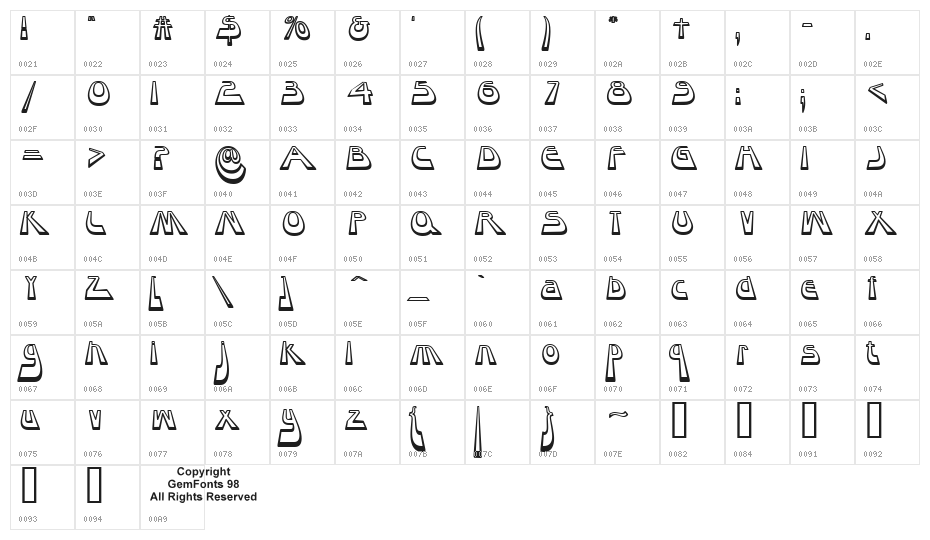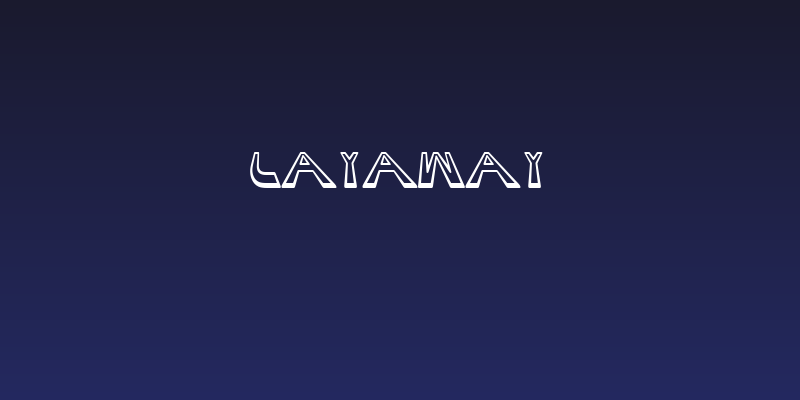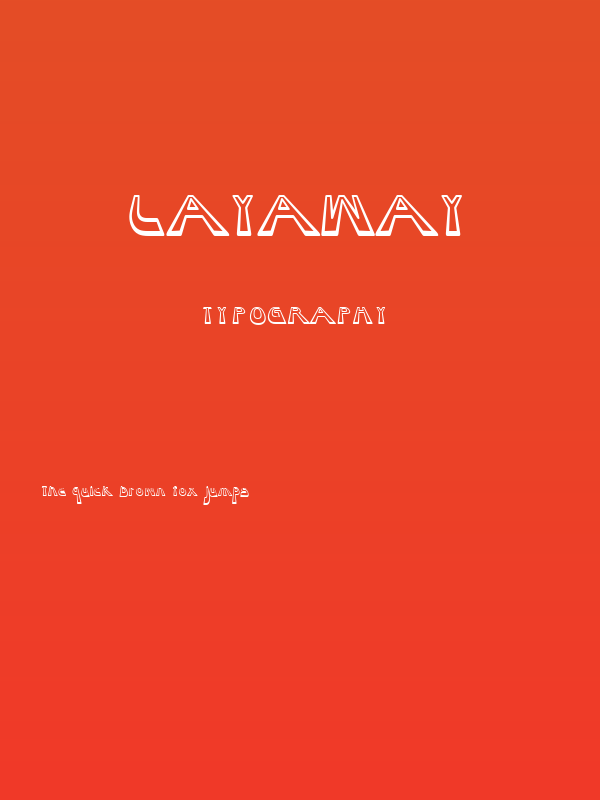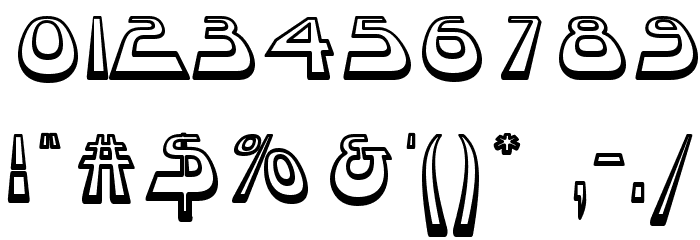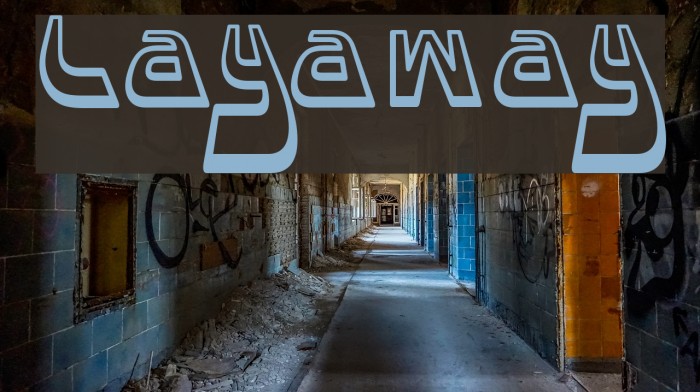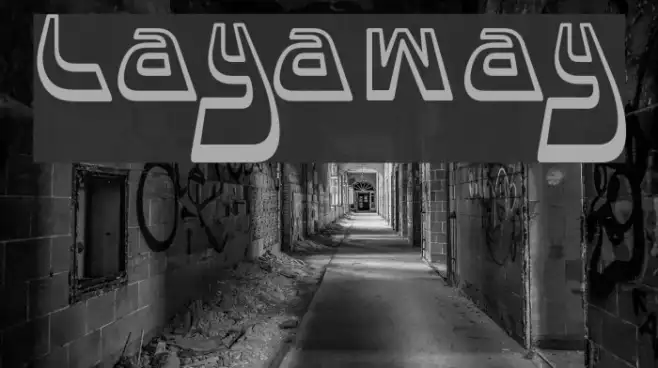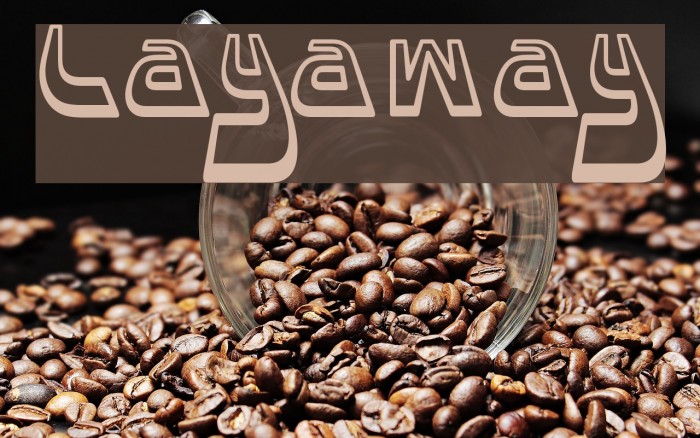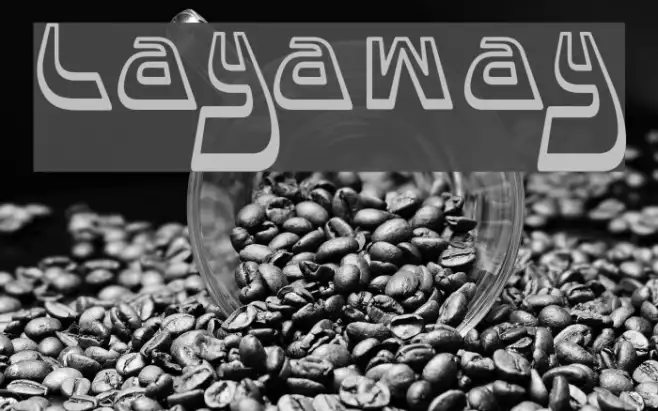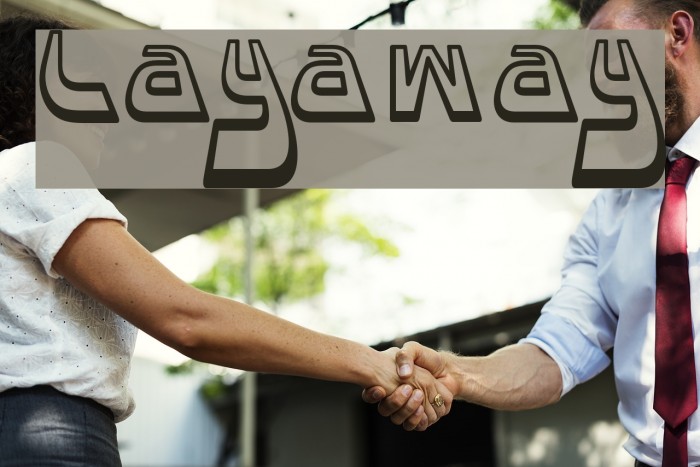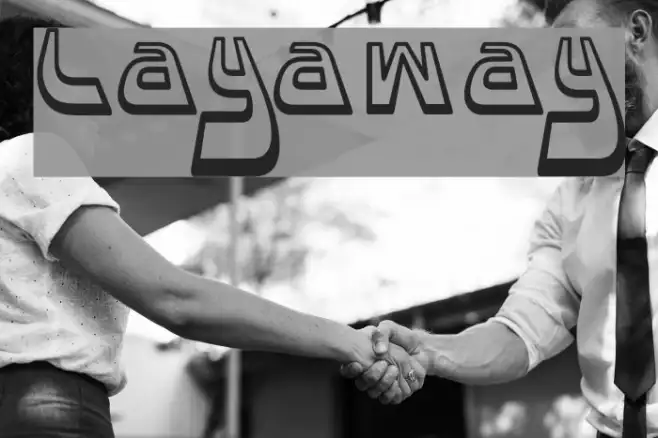
Layaway Font
Layaway Description
This font features a bold and dynamic design with a three-dimensional effect, giving each character a sense of depth and movement. The letters are outlined with a thick black border, creating a striking contrast against the white interior. The angular and geometric shapes of the characters evoke a futuristic and modern aesthetic, making it stand out in any design project. The uppercase and lowercase letters maintain a consistent style, while the numbers and special characters complement the overall look with their unique and playful forms. This font is ideal for projects that require a bold and eye-catching typeface.
| Proposed Projects | Ideal for futuristic designs, posters, branding, and any project needing a bold, standout typeface. |